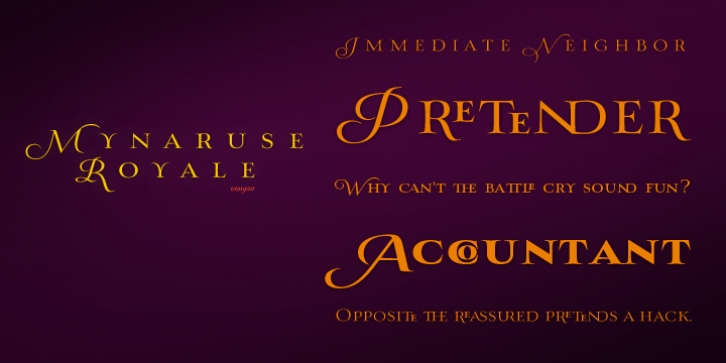
Mynaruse Royale is a display serif font family. This typeface has five styles and was published by Insigne Design.
Mynaruse Royale is an expansion of Mynaruse Titling. It features script capitals and widely tracked and smaller titling capitals. Mynaruse Royale has plenty of character and, with its powerful and sharp serifs that draw the eye.
· Mynaruse Royale Light
· Mynaruse Royale Regular
· Mynaruse Royale Medium
· Mynaruse Royale Bold
· Mynaruse Royale Heavy